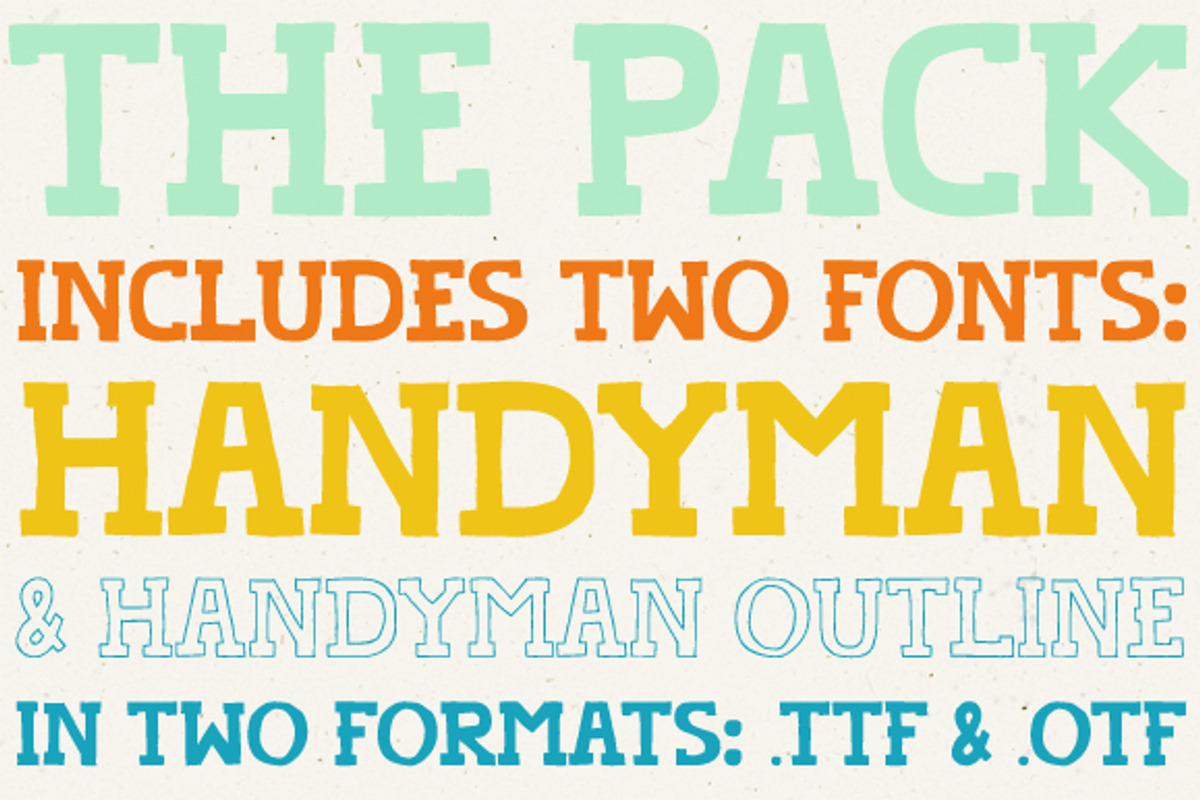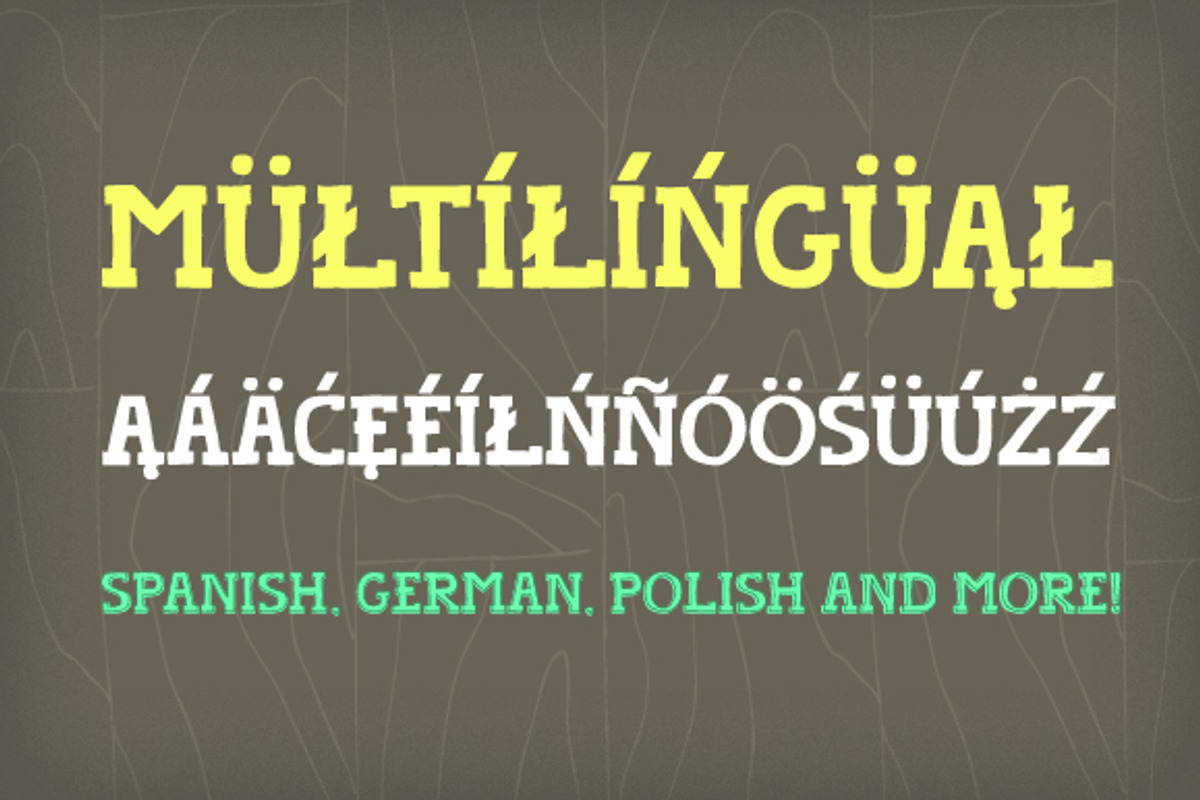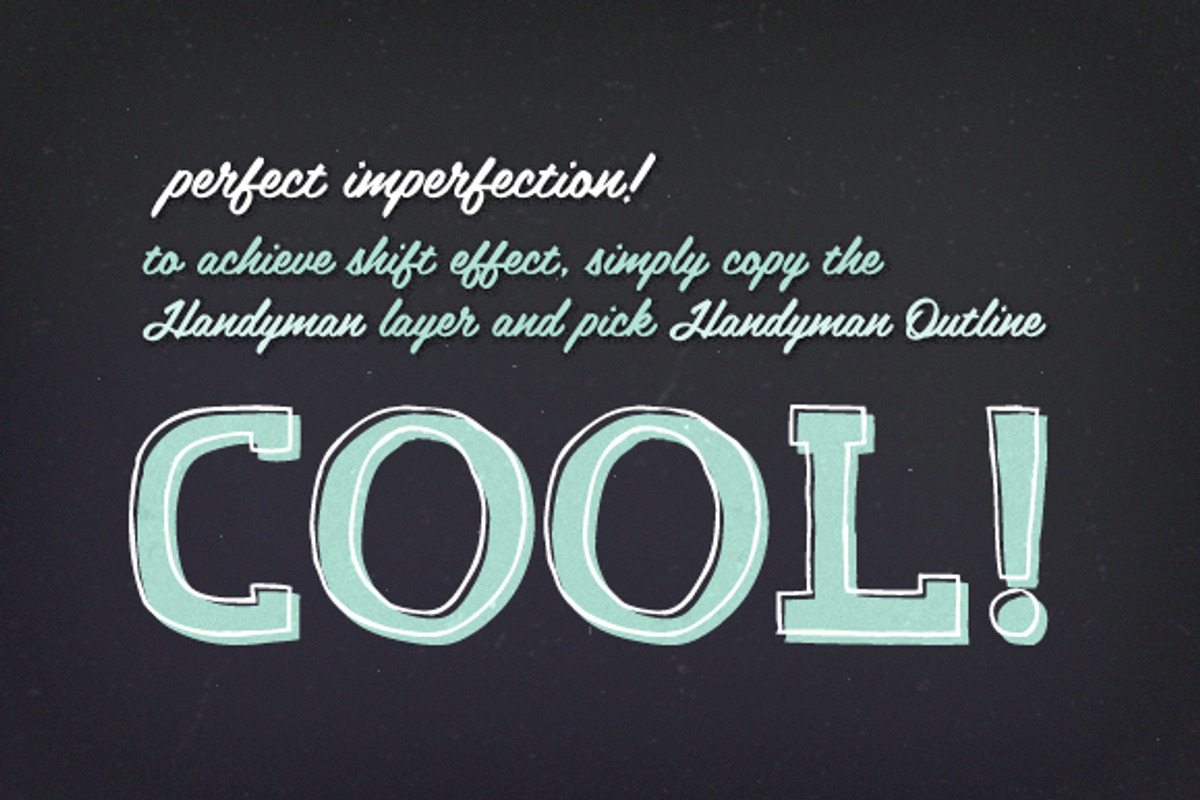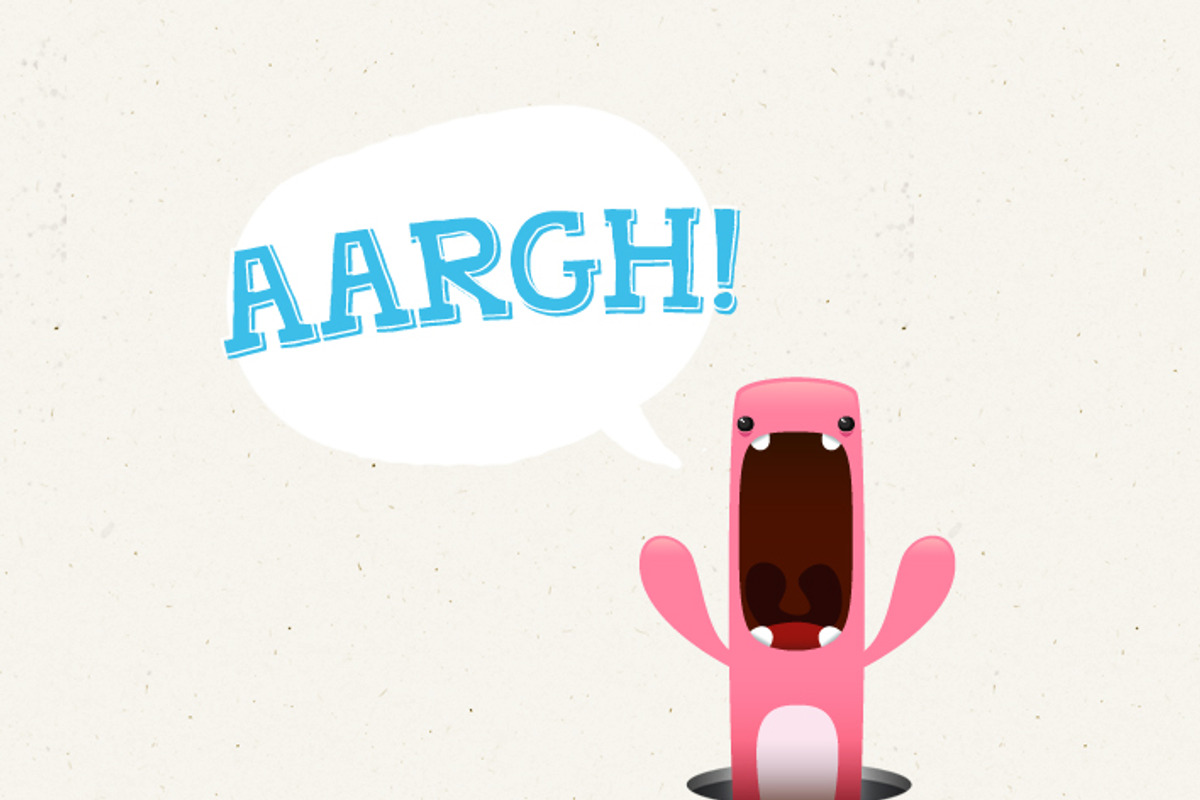
Handyman Font + Outline
Handyman Font + Outline by Frisk Shop is a font selected for branding, posters, packaging, typography.
Why Handyman Font + Outline is worth a look
Handyman Font + Outline by Frisk Shop fits naturally into Branding, posters, packaging, typography.